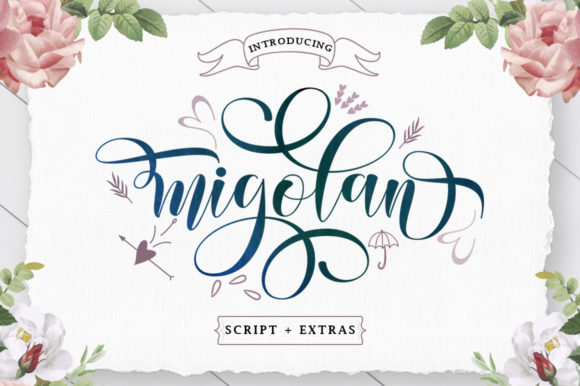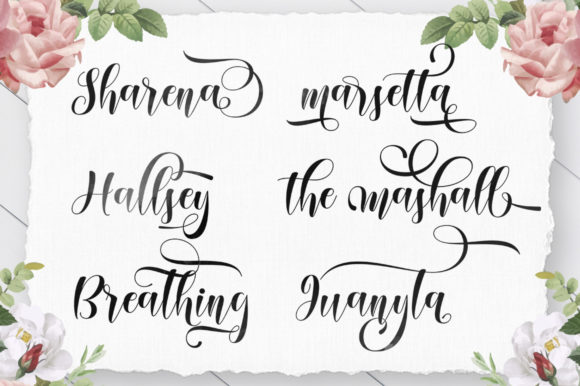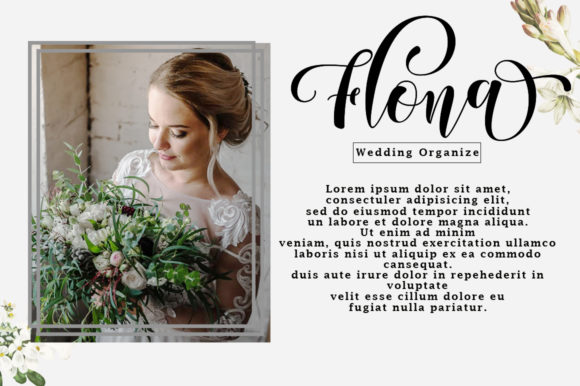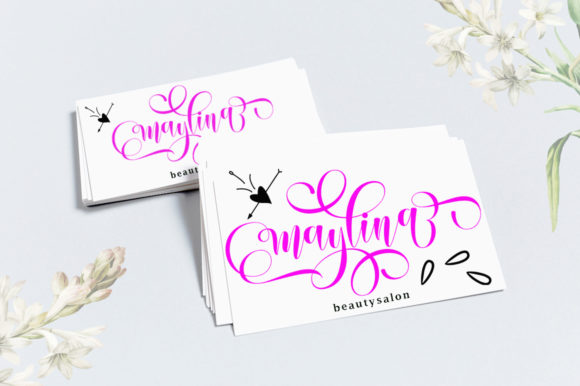
Migolan Font: Elegant Script for Wedding Invitations & DIY Projects
About the Migolan Font
The Migolan Font offers a perfect balance of form and function for your design needs. Migolan is a sweet, soft hand-lettered script font. Fall in love with its authentic feel and use it to create gorgeous wedding invitations, beautiful stationary art, eye-catching social media posts, and cute greeting cards.
Migolan’s soft, hand-lettered style excels in applications requiring a personal touch, such as wedding invitations, branding for artisanal products, or short-form social media content. Its charm works well for logos and headers where readability isn’t paramount. However, avoid using it for body text or lengthy paragraphs due to its low legibility at smaller sizes.
For effective pairings, consider a clean sans-serif like Lato or Open Sans for a contemporary contrast, or a classic serif such as Garamond or Merriweather for a more traditional feel. These pairings provide a balance to Migolan’s informal script, ensuring both visual appeal and clear communication.
Migolan projects a friendly, romantic personality, ideal for brands emphasizing warmth and handcrafted quality. Avoid pairing it with overly geometric or bold fonts which might clash with its delicate nature.
Migolan Font Usage Examples
Migolan Font Example